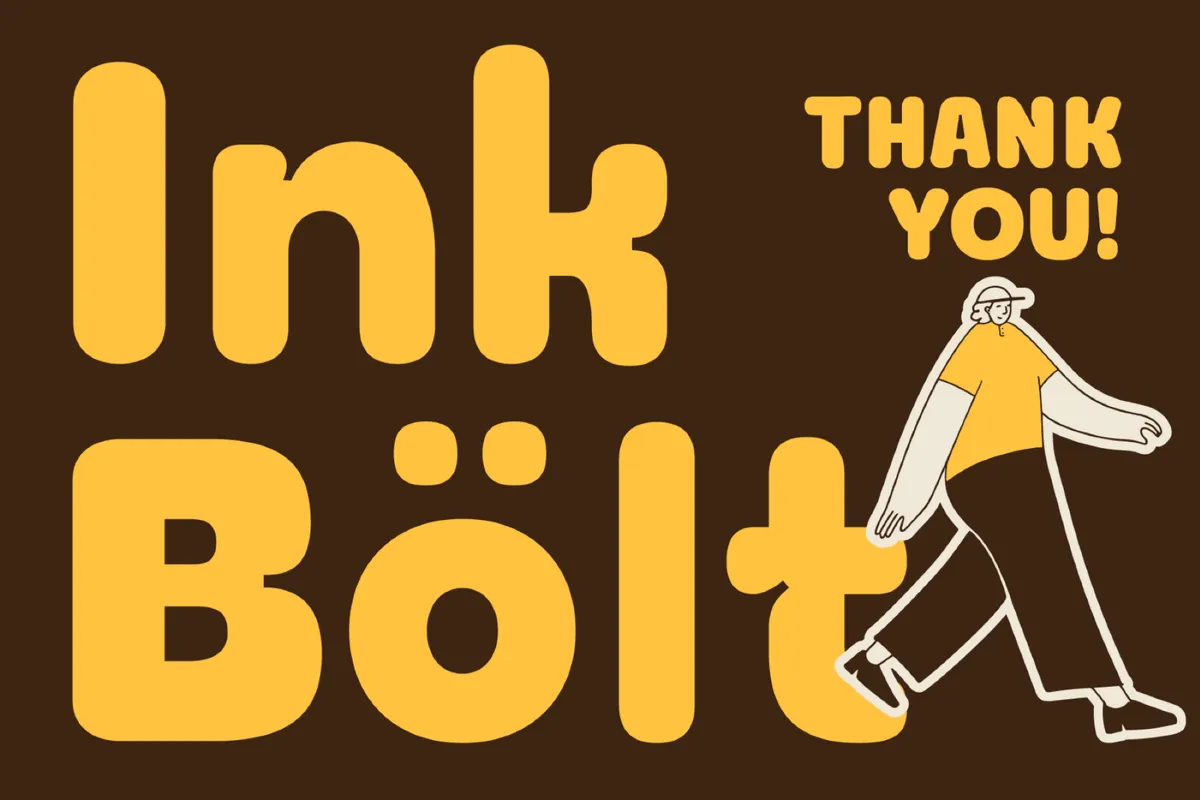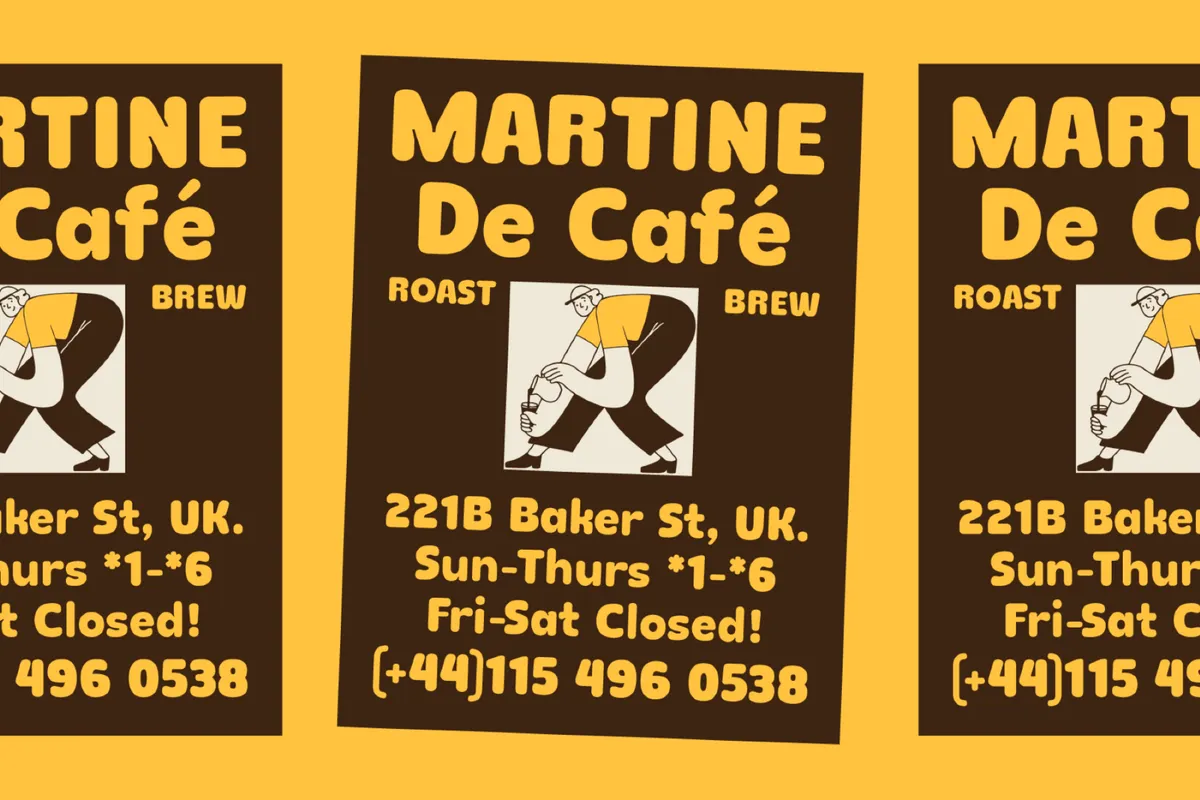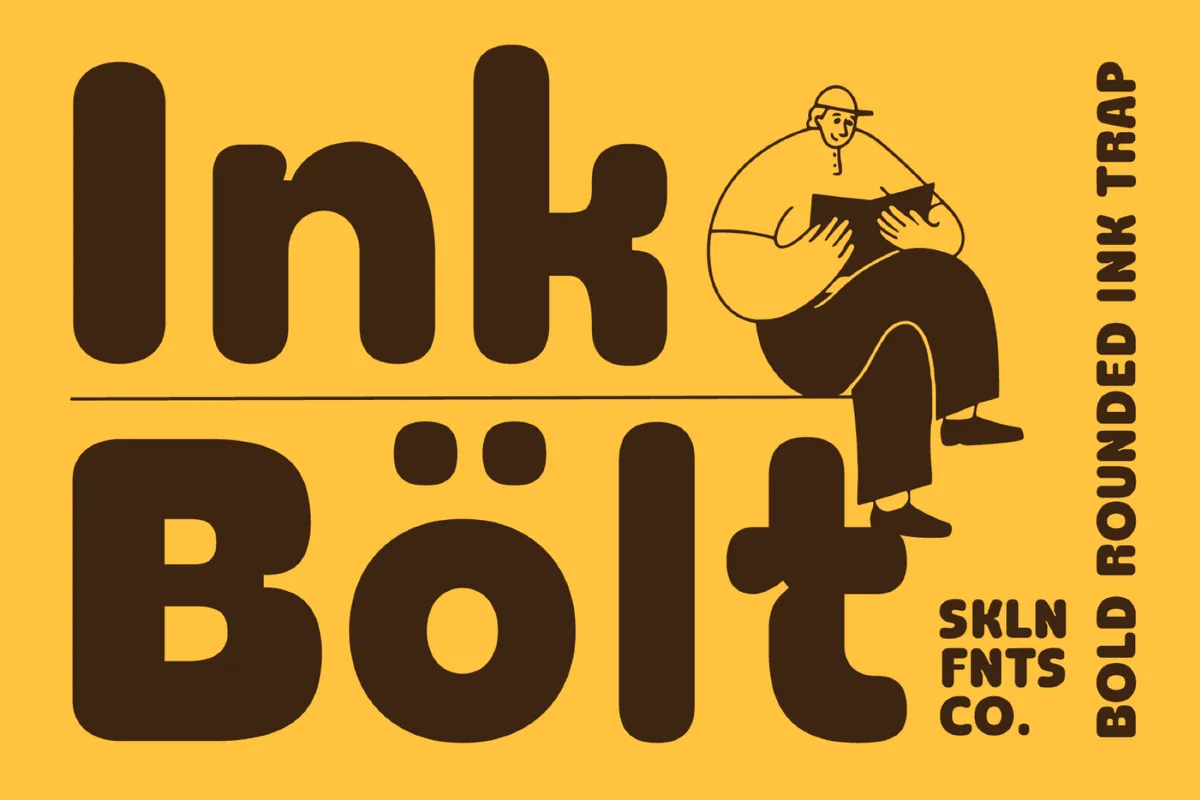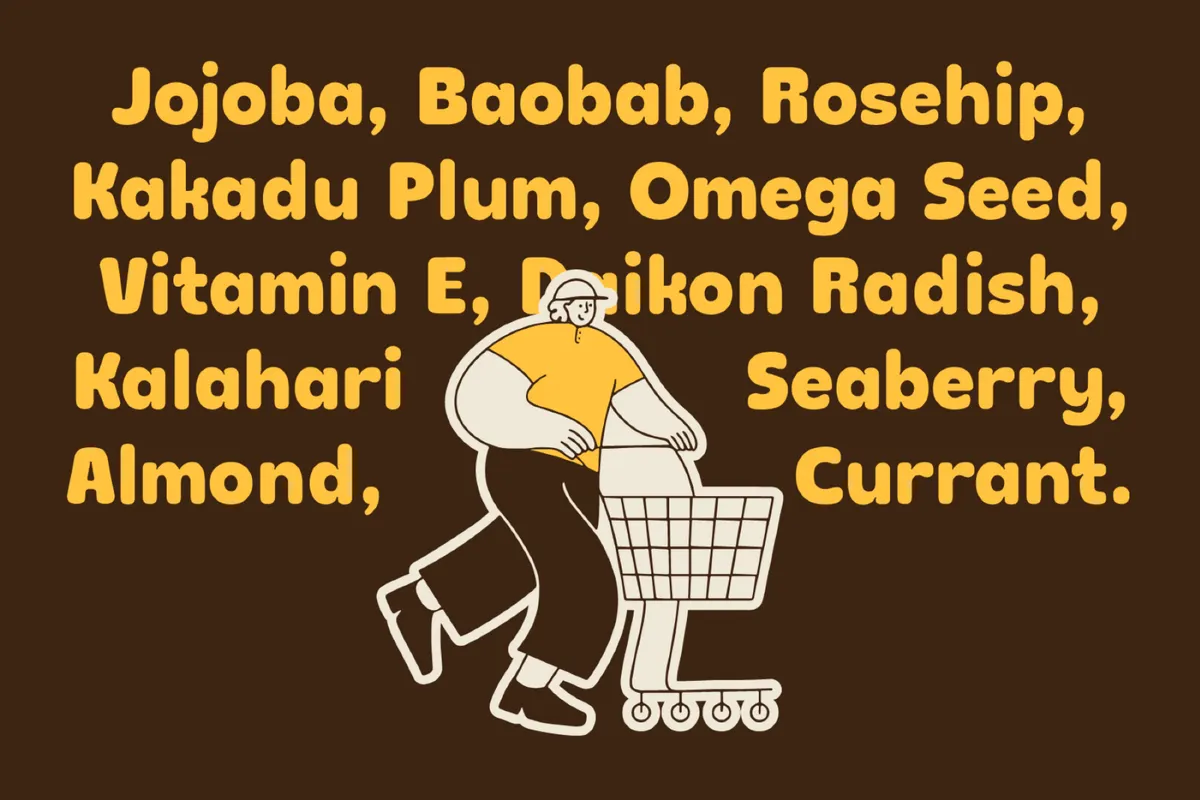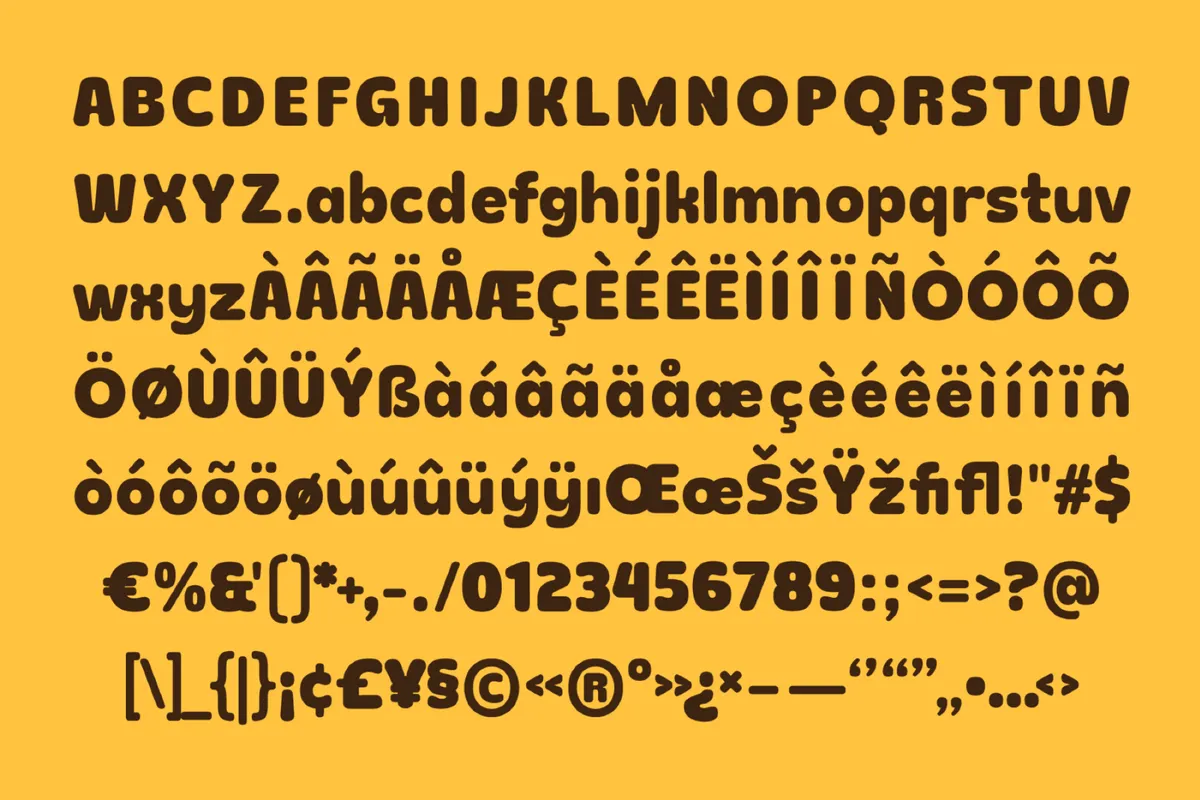
SFC Ink Bolt - Rounded Display Font
SFC Ink Bolt
Ink Bolt is a bold rounded display font with thick, soft-cornered strokes and small ink traps notched into the joins, so the counters are open even at this weight. It reads closer to a hand-inked sign than a geometric grotesk.
The single weight goes on menus, labels and packaging fronts, where a dense, friendly word has to hold its own at a distance. Use it for café menus, bakery packaging, cosmetics labels, kids' brand logos, grocery signage, sticker sheets, and thank-you cards.
- one style: Regular;
- uppercase & lowercase;
- numerals, punctuation & symbols;
- Latin-1 Western European;
- 216 glyphs.